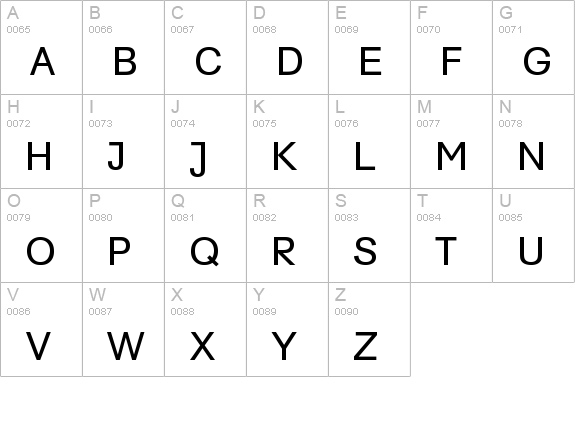
AG Schoolbook Regular Font Details
AG Schoolbook Regular is the standard, neutral variant in the AG typeface family \xE2\x80\x94 well suited to general body text, paragraphs, and standard typographic work.
AG Schoolbook Regular is a timeless and classic font that exudes elegance and sophistication. Its clean and clear design makes it perfect for a wide range of projects, from educational materials to branding and publications. This versatile font strikes the perfect balance between traditional and modern, making it suitable for both print and digital applications. What sets AG Schoolbook Regular apart is not only its timeless appeal but also its accessibility. This font is available for free download at FontsMarket.com, allowing designers and creatives to easily incorporate it into their projects without any cost. With its legible and professional appearance, AG Schoolbook Regular is sure to enhance any design and provide a touch of sophistication. Whether you're looking to create a polished educational resource, a sleek corporate document, or a stylish branding project, AG Schoolbook Regular is the perfect choice. Download this elegant and versatile font for free today and elevate your designs with its timeless charm.